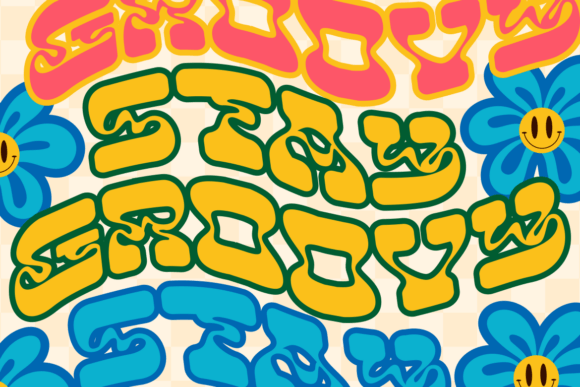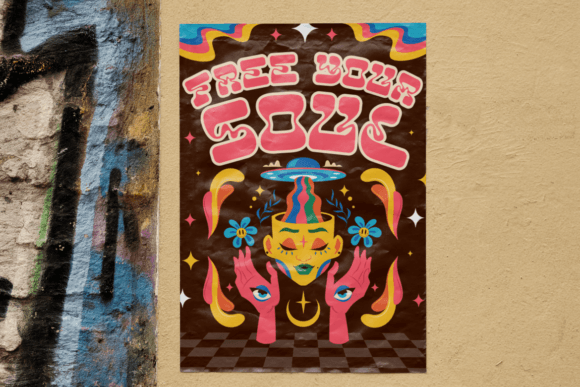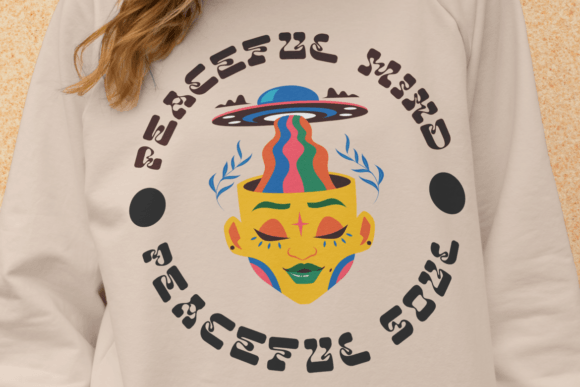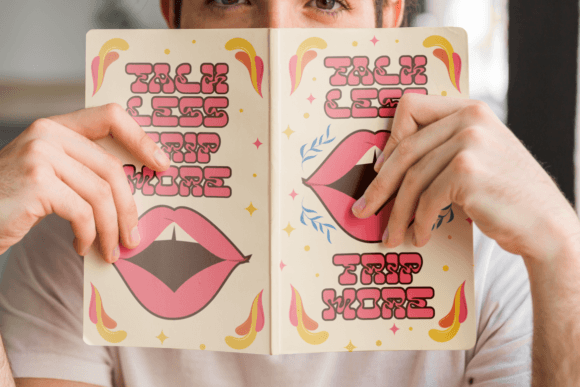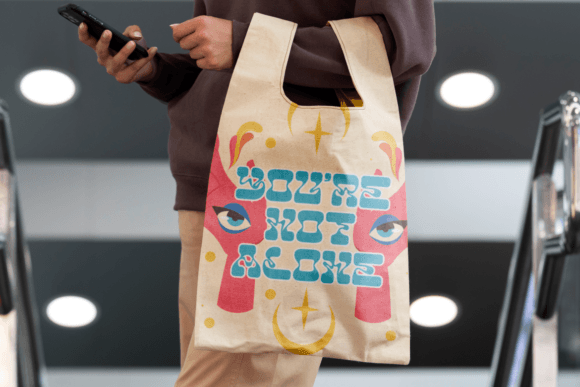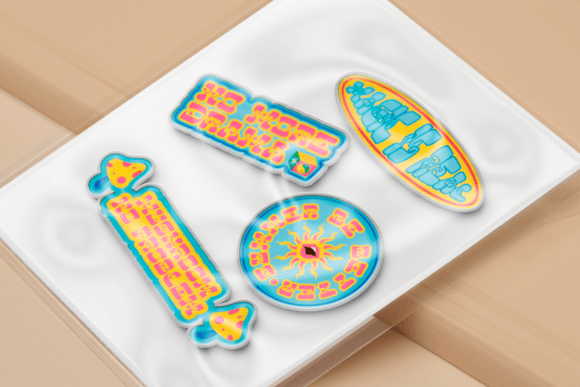
Introduction to Neon Daze Font
Step into a world of vibrant imagination with Neon Daze, a bold and whimsical psychedelic font that brings the spirit of the retro era to life.
This font features thick, wavy letterforms with flowing curves that create a dynamic, surreal aesthetic, perfect for designs that demand attention Inspired by the groovy visuals of the 60s and 70s, each character is a playful blend of soft corners and eccentric shapes.